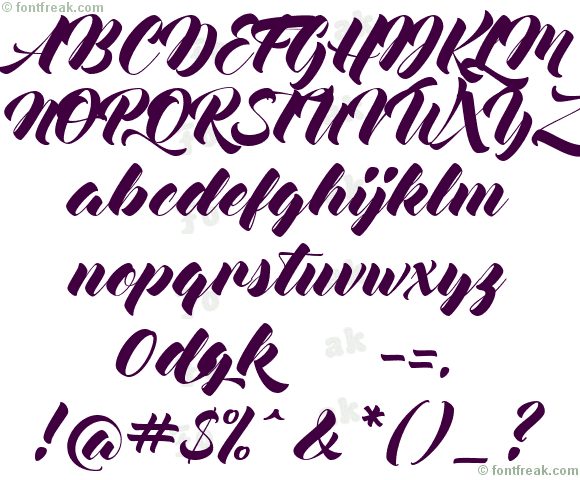
Mocking Bird
The Mocking Bird font by Clement Nicolle is a beautifully crafted script typeface that captures an elegant, flowing style reminiscent of handwritten calligraphy. Characterized by its moderate stroke weight and graceful curves, this font adds a personal touch to any design project. The contrast between thick and thin strokes enhances its visual appeal, while the generous spacing between characters ensures readability. Decorative elements, such as subtle flourishes and loops, contribute to the font's artistic flair, making it a standout choice for various applications.
This versatile font is ideal for a range of creative uses. It shines in wedding invitations, where its romantic aesthetic can convey heartfelt messages. Additionally, Mocking Bird is perfect for branding projects, particularly for small businesses looking to establish a unique identity. Its charming style makes it suitable for restaurant menus, where it can evoke a warm and inviting atmosphere. Graphic designers can also leverage this font for website headings and social media graphics, enhancing their visual storytelling with a touch of elegance. Content creators will find it particularly appealing for promotional materials, making their content more engaging and visually striking.
What sets the Mocking Bird font apart is its ability to blend sophistication with approachability. Its unique character makes it a delightful choice for those looking to add a personal touch to their work. For anyone interested in enhancing their design toolkit, the Mocking Bird font free download is an opportunity not to be missed.